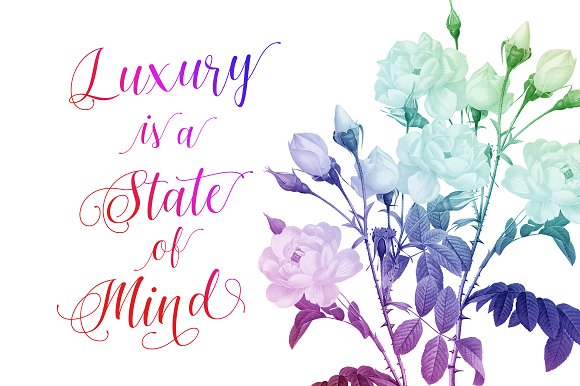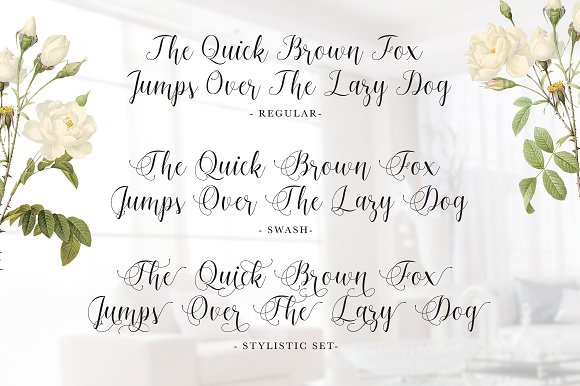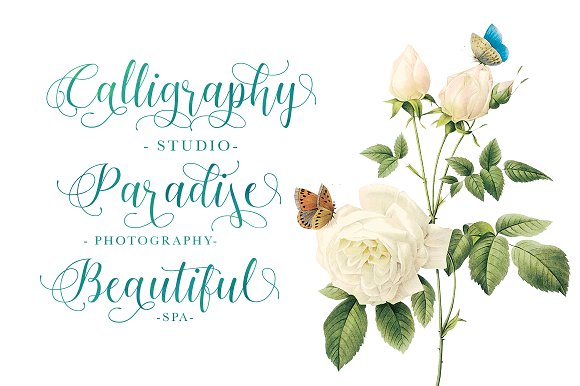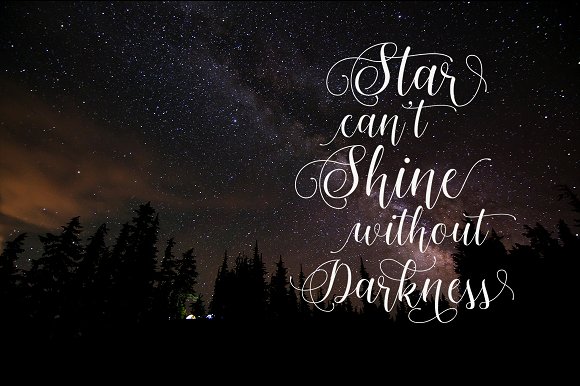
Introducing Bigshine Font: A Modern Handwritten Calligraphy Style
Are you a designer or crafter looking for a unique and elegant font to elevate your creative projects? Look no further than Bigshine Font, a modern handwritten calligraphy style font created by Ian Mikraz. This stunning font features 317 glyphs and 132 alternate characters, making it a versatile and sophisticated addition to any design.
What is Bigshine Font?
Bigshine Font is a modern handwritten calligraphy style font that exudes elegance and sophistication. With its fluid, cursive strokes and intricate details, this font is perfect for a variety of design projects, from wedding invitations and branding materials to packaging and digital media. The font’s creator, Ian Mikraz, has carefully crafted Bigshine to provide a unique and beautiful typographic experience.
Key Features of Bigshine Font
• 317 Glyphs: Bigshine Font features 317 glyphs, including uppercase and lowercase letters, numbers, and punctuation marks. This extensive character set provides designers with a wide range of options for creating unique and customized text.
• 132 Alternate Characters: In addition to its standard character set, Bigshine Font also includes 132 alternate characters, allowing designers to add variety and personality to their text.
• Modern Handwritten Calligraphy Style: Bigshine Font boasts a modern handwritten calligraphy style that is both elegant and sophisticated. Its fluid strokes and intricate details make it perfect for designs that require a touch of luxury and refinement.
Uses for Bigshine Font
Bigshine Font is a versatile font that can be used in a variety of design projects, including:
• Wedding Invitations: Bigshine Font is perfect for creating beautiful and elegant wedding invitations that set the tone for a special day.
• Branding Materials: The font’s modern and sophisticated style makes it ideal for branding materials, such as logos, business cards, and letterheads.
• Packaging: Bigshine Font can add a touch of luxury and refinement to packaging designs, making it perfect for high-end products.
• Digital Media: The font’s clear and legible design makes it suitable for digital media, such as website headers, social media graphics, and email newsletters.
Benefits of Using Bigshine Font
Using Bigshine Font in your design projects offers several benefits, including:
• Unique and Elegant Design: Bigshine Font provides a unique and elegant design that can elevate your creative projects and set them apart from the competition.
• Versatility: The font’s extensive character set and alternate characters make it versatile and adaptable to a wide range of design projects.
In conclusion, Bigshine Font is a modern handwritten calligraphy style font that offers a unique and elegant design, versatility, and time-saving benefits. With its 317 glyphs and 132 alternate characters, this font is perfect for designers and crafters looking to elevate their creative projects. Whether you’re designing wedding invitations, branding materials, packaging, or digital media, Bigshine Font is a sophisticated and beautiful addition to any design.